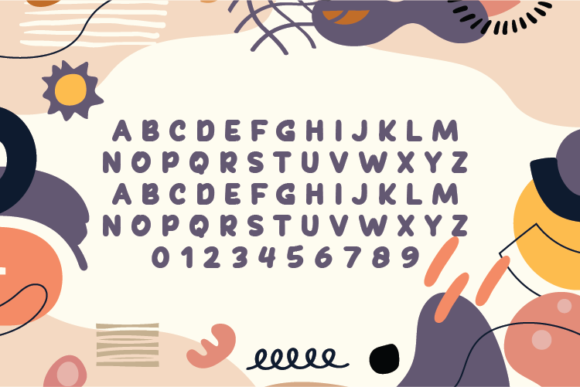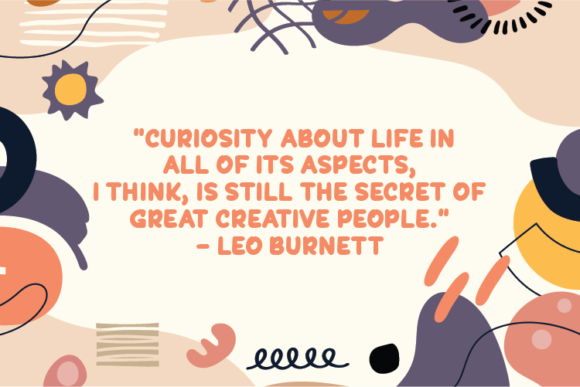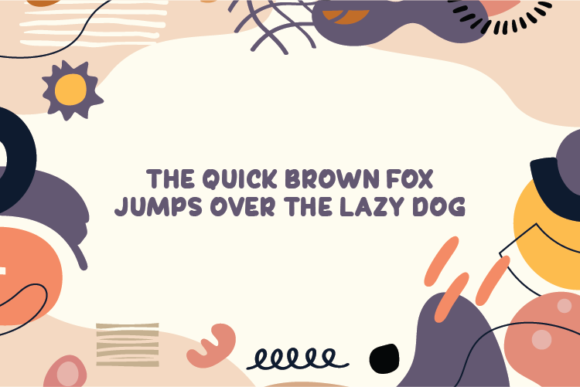
Bubbly Bubble Font
Bubbly Bubble, with its natural handwritten charm and a distinctive feature of preserving each character’s original indentation without altering a single node, is a font that breathes life and authenticity into a variety of design projects. This font is not just a typographic choice; it’s an invitation to infuse your creations with a playful and genuine handwritten touch, making it ideal for quotes, notes, tees, and a broad spectrum of product designs.
The handwritten quality of Bubbly Bubble brings a sense of warmth and personality to your text. Every character carries the natural flow of handwriting, creating an inviting and friendly aesthetic. This font becomes a canvas for expressing emotions, making it perfect for quotes that demand not just words but a genuine and heartfelt presentation.
Whether you’re jotting down notes or designing tees, Bubbly Bubble’s playful and authentic style enhances the visual appeal of your content. The preserved character indentation adds a layer of interest, making each character unique and contributing to an overall engaging and dynamic aesthetic.
Bubbly Bubble’s versatility extends to product designs, where its natural handwritten charm can transform packaging, labels, and other elements into visually appealing creations. The font becomes an asset for branding, adding a touch of charm and authenticity that resonates with consumers.
At the heart of Bubbly Bubble is its ability to transcend the boundaries of a traditional font. It becomes a creative tool that invites you to explore the joy of natural handwriting in your designs. This font is not just about letters and words; it’s about infusing your projects with a delightful and genuine handwritten personality.
In summary, Bubbly Bubble is a font that stands out for its natural handwritten charm and unique preservation of character indentation. Its playful and authentic style makes it a versatile choice for quotes, notes, tees, and a myriad of product designs. Let Bubbly Bubble be the creative companion that breathes life and genuine handwritten joy into your design projects, leaving a lasting impression of charm and authenticity.